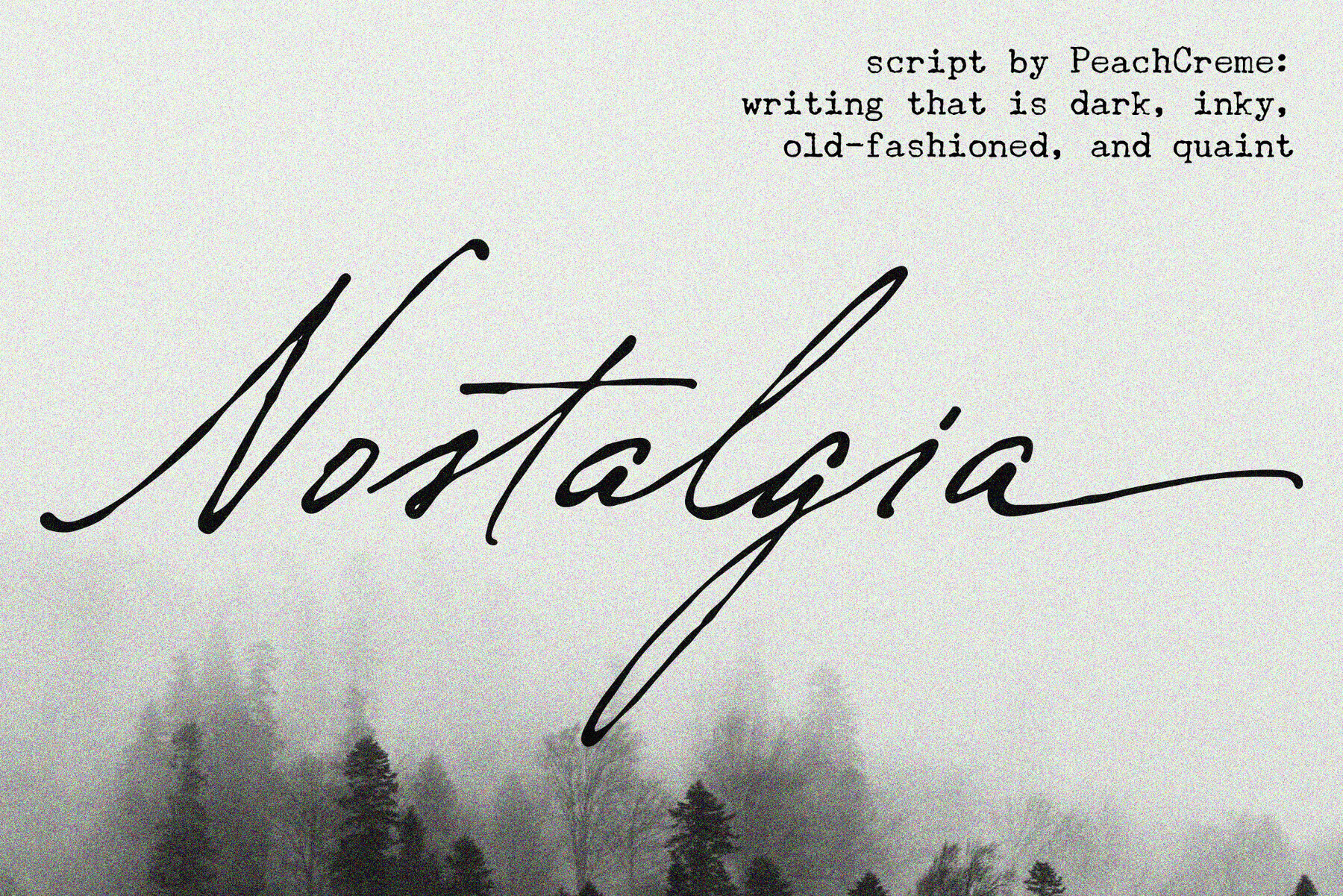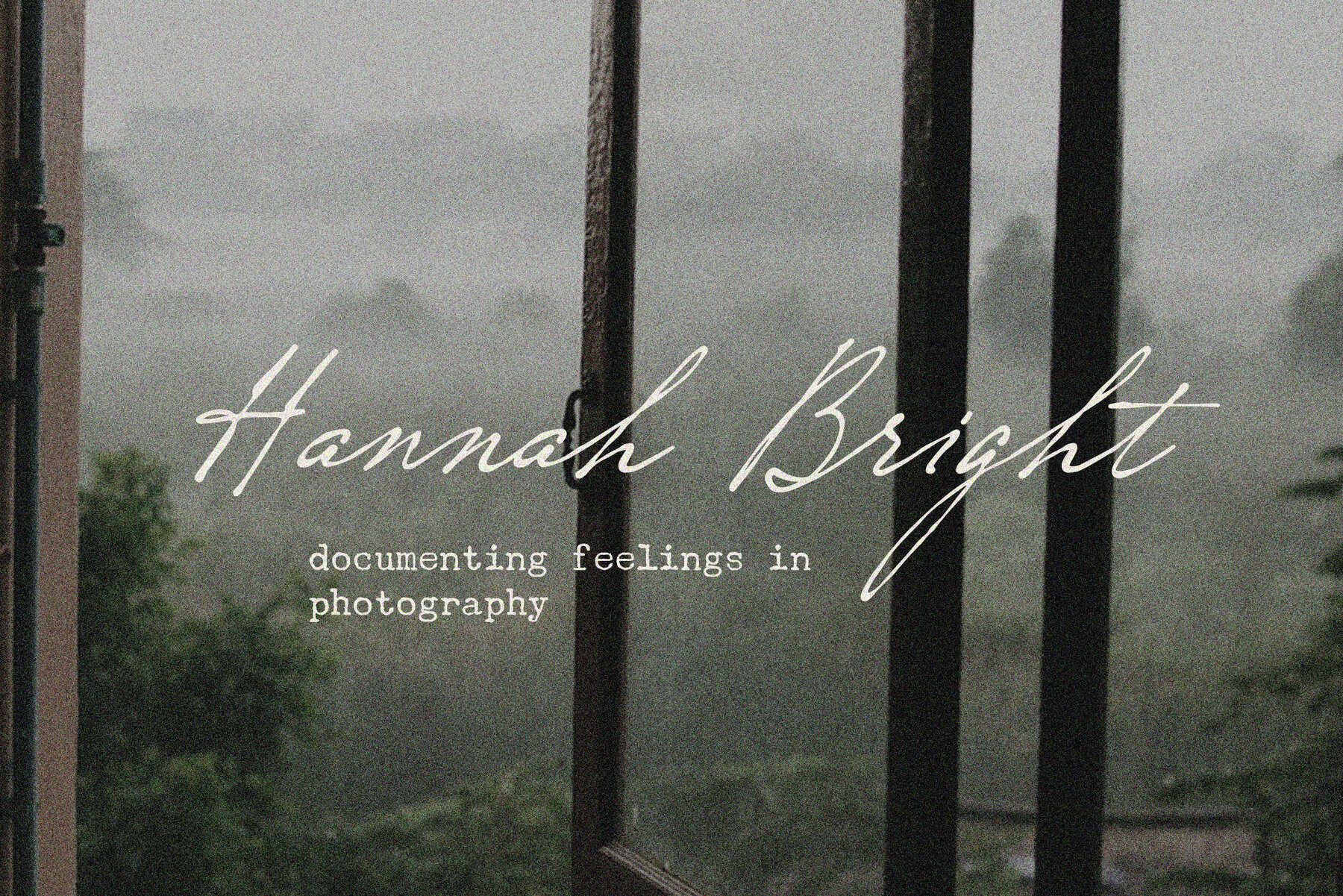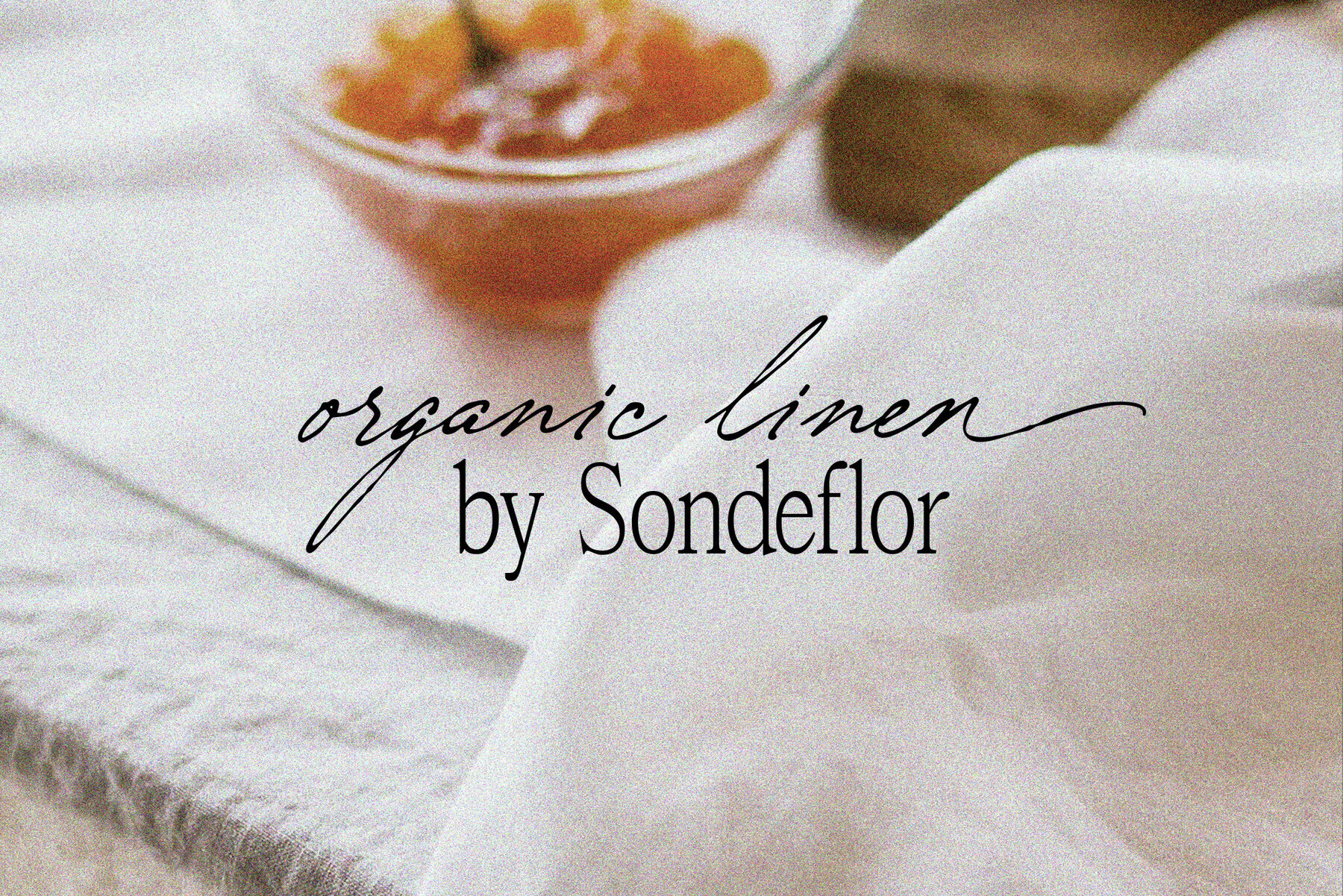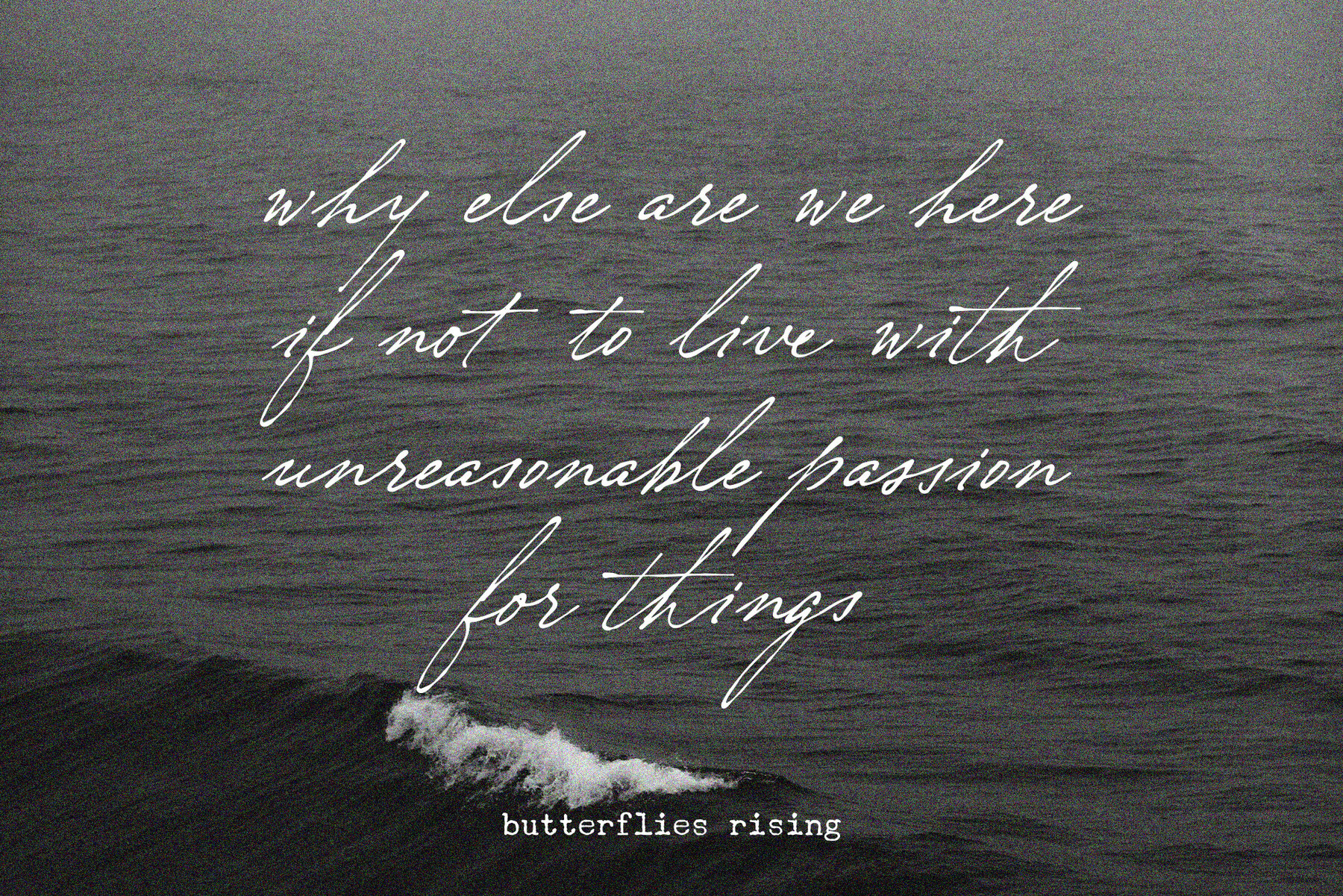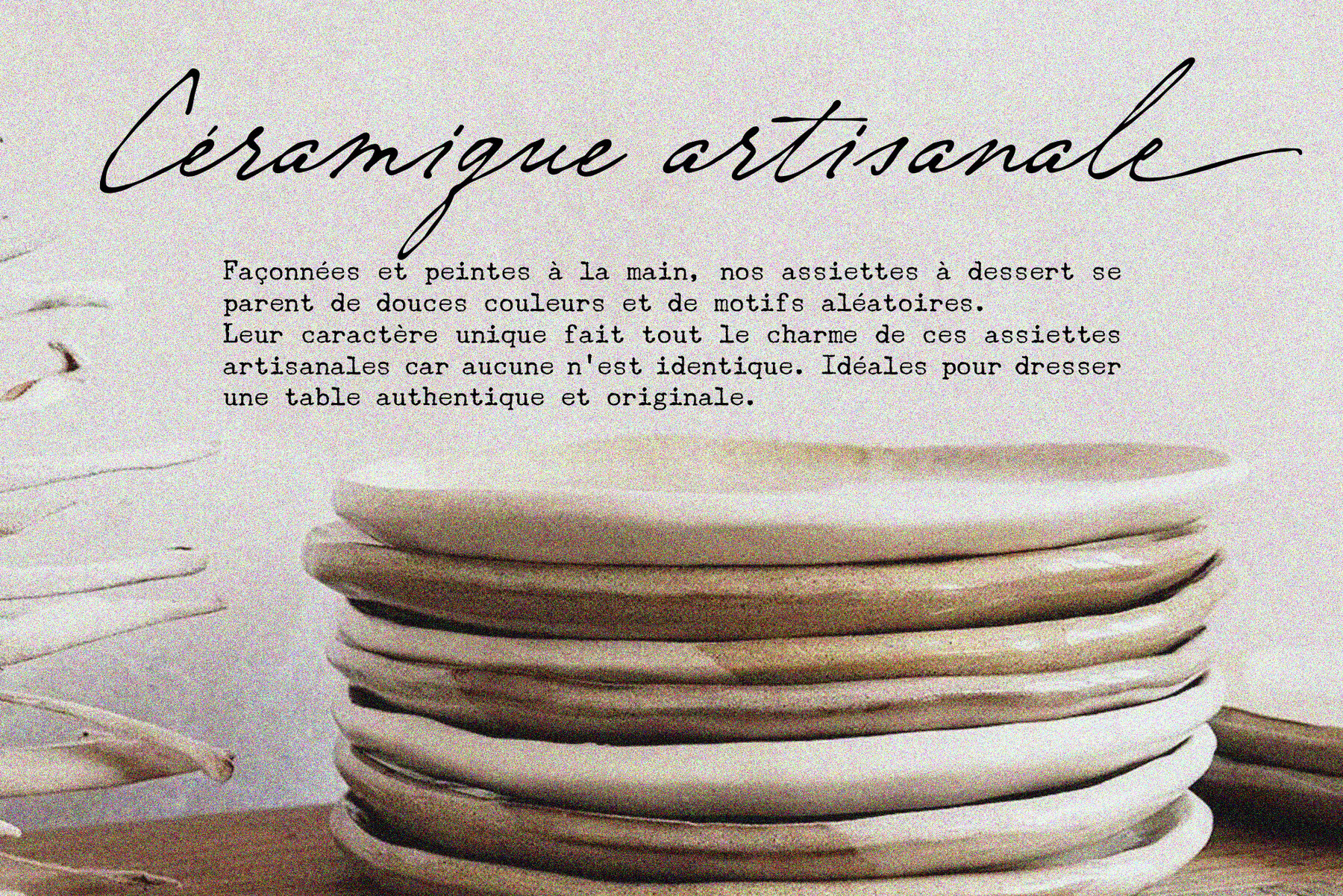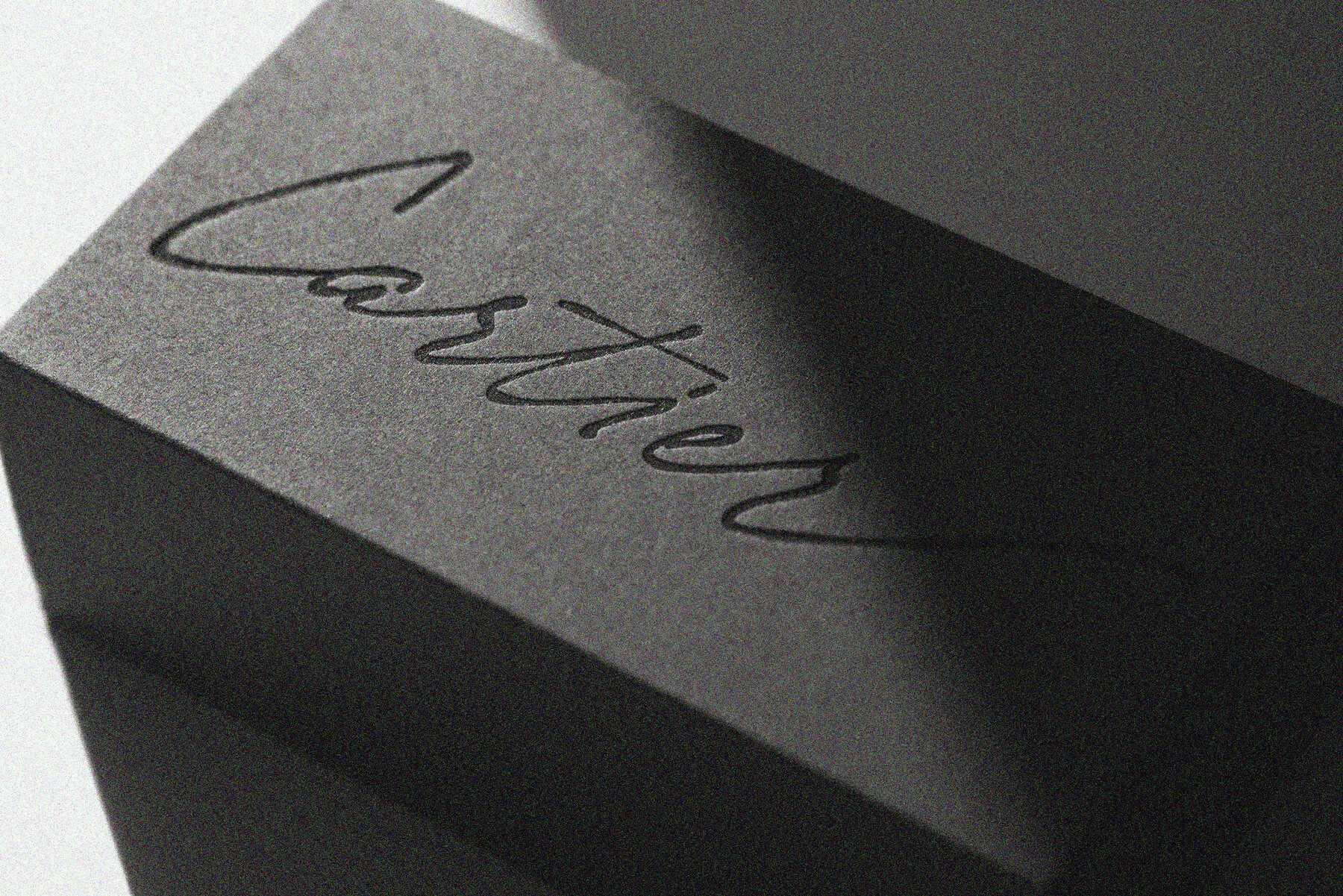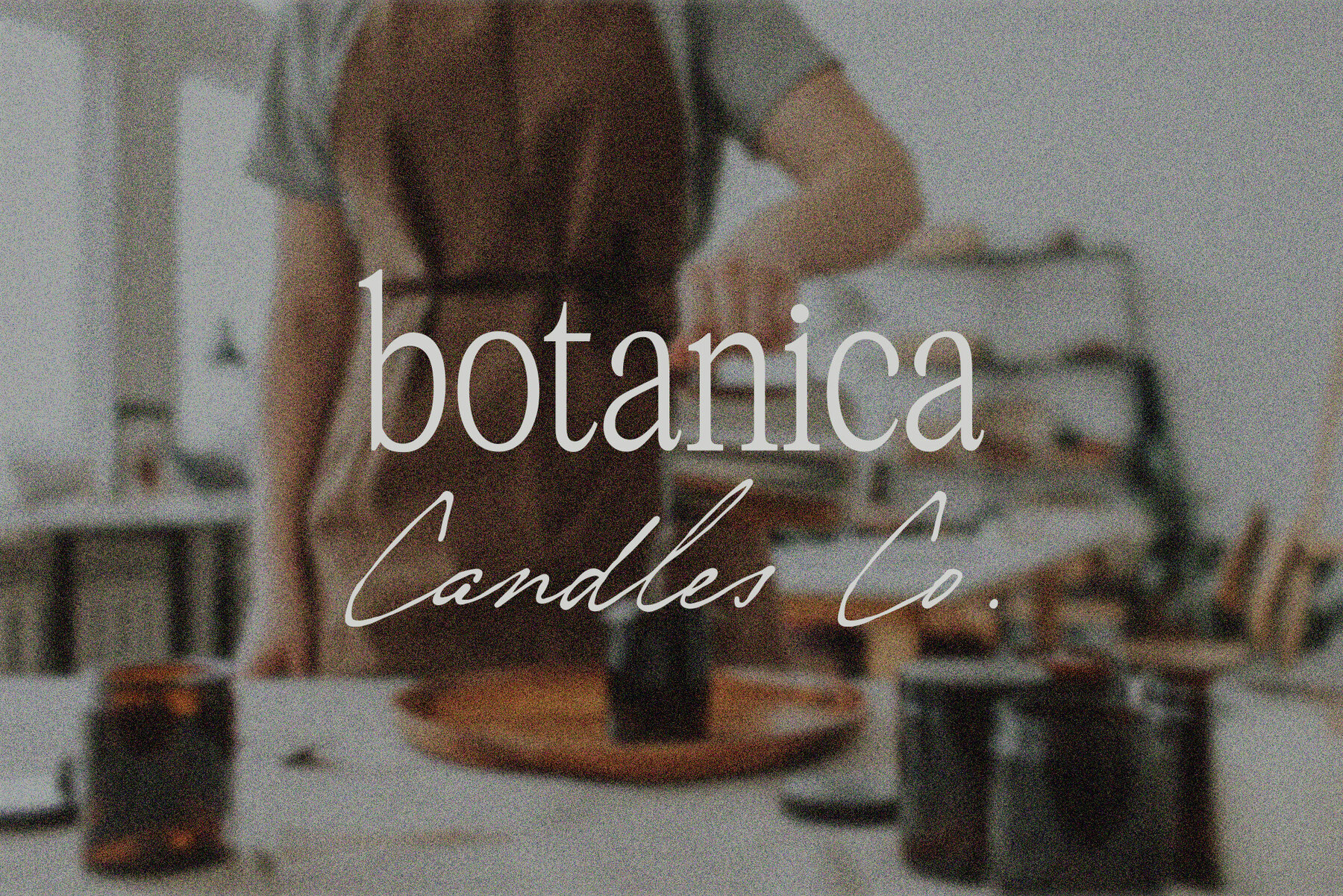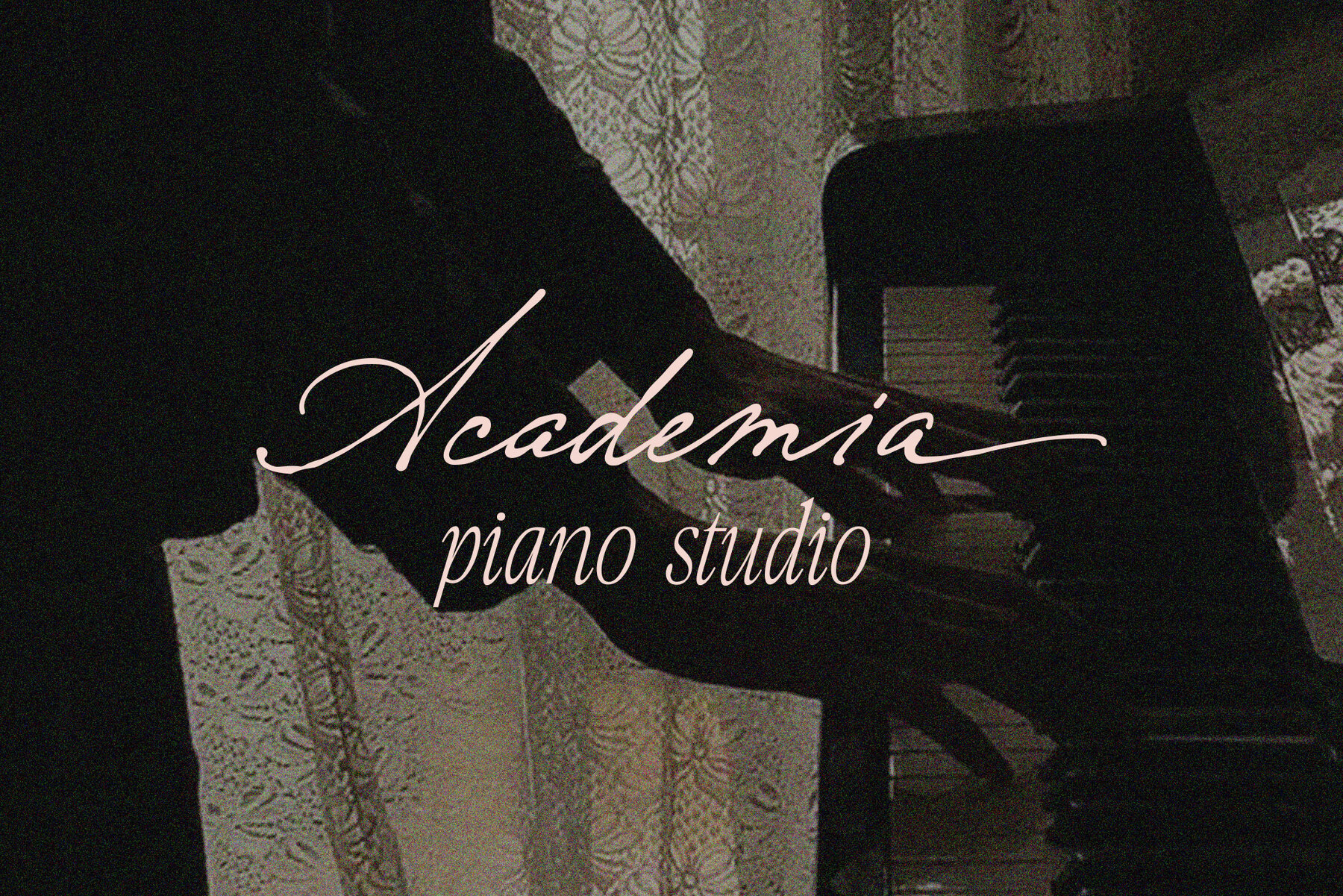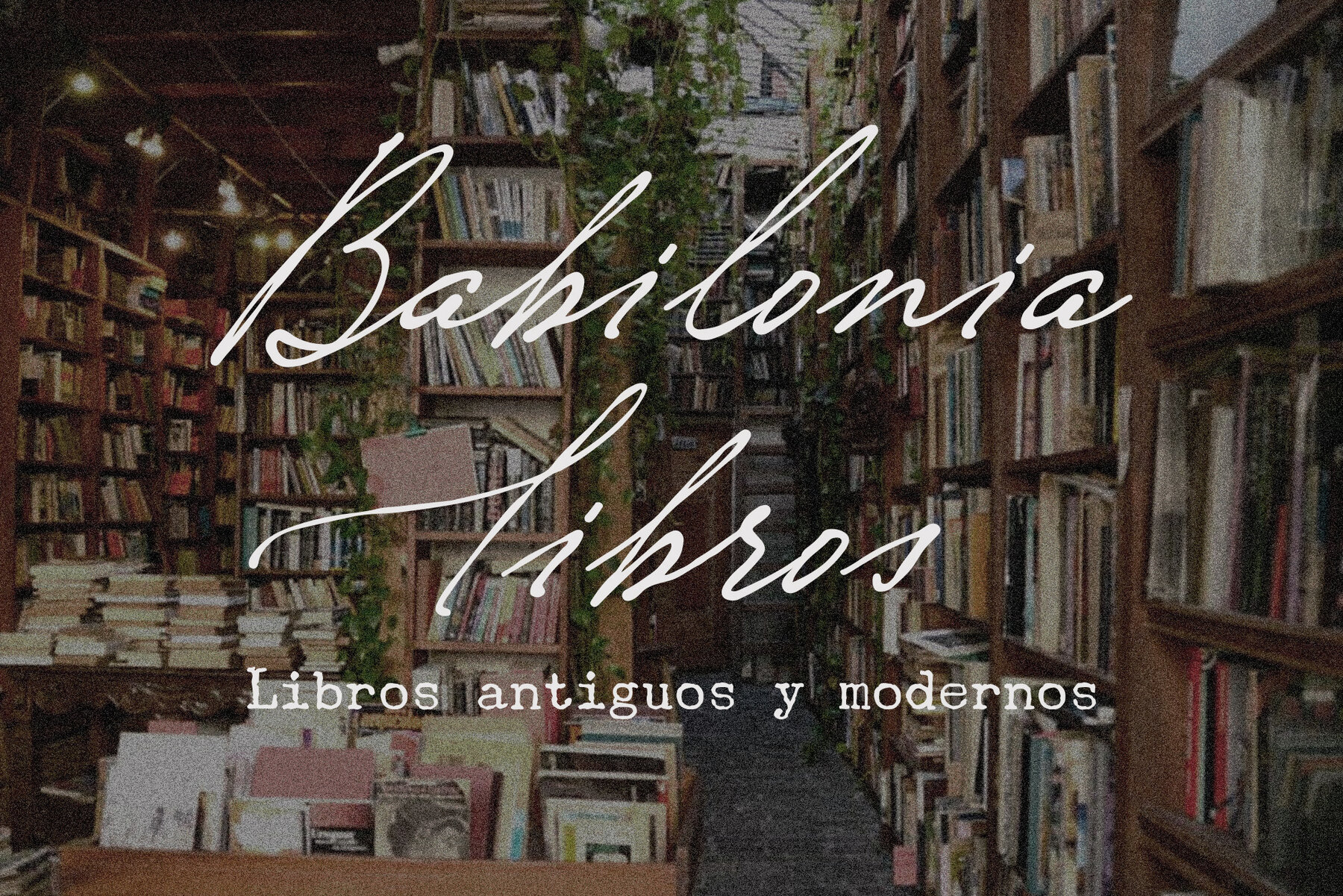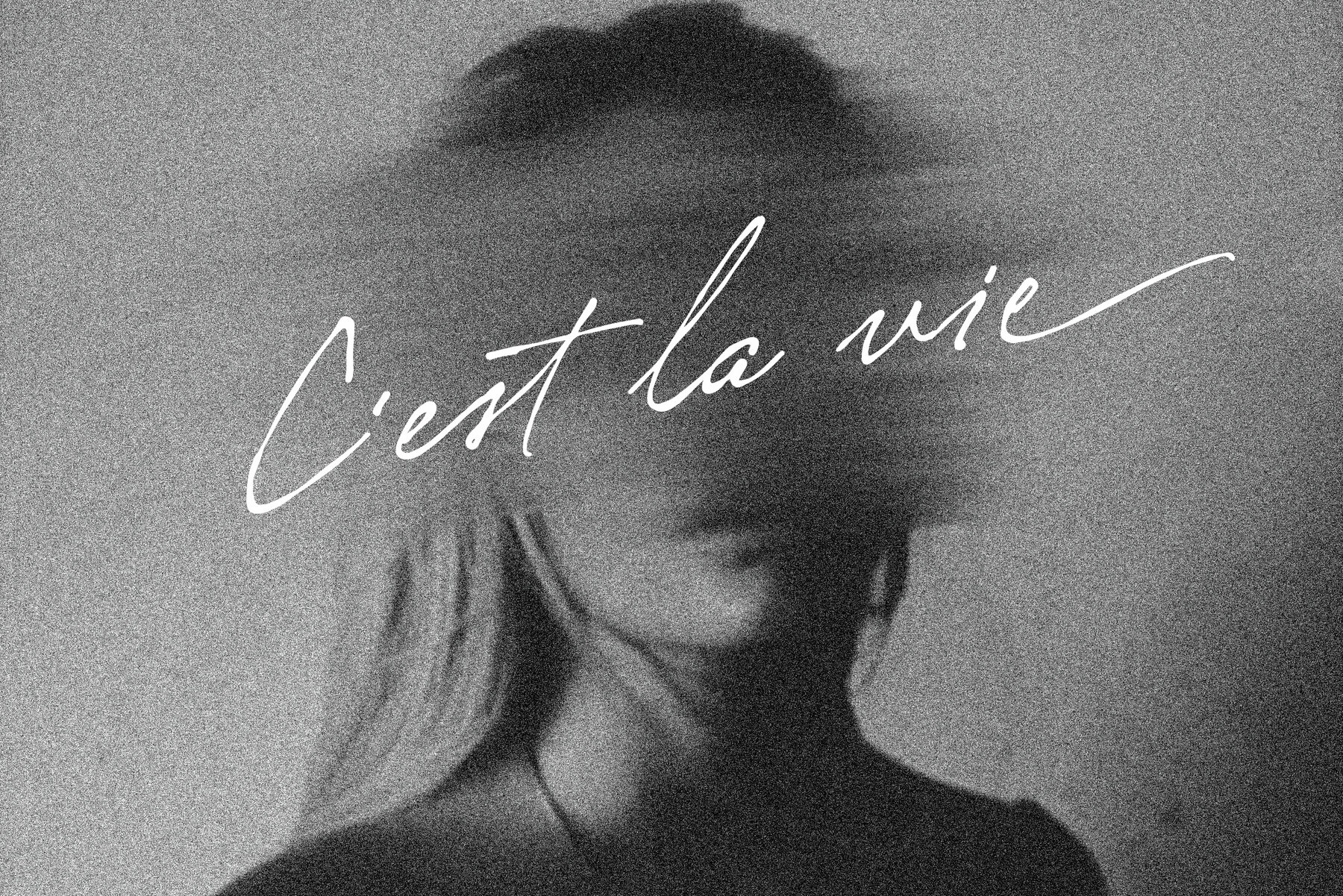
Nostalgia Peachcreme Font
Nostalgia PeachCreme
Nostalgia is a dark, vintage-style font designed for effortless readability. Inspired by inky handwriting with a natural flow, it features impressive starting and ending lowercase swashes. This versatile font is perfect for a variety of projects, including wedding stationery, Instagram quotes, contemporary logos, packaging, and websites.
With its top-notch, traditionally styled hand-drawn characters, Nostalgia offers an excellent resource for those looking to add a handwritten touch to their work. Ideal for headlines and titles, this font will ensure your text stands out with an elegant and timeless appeal.